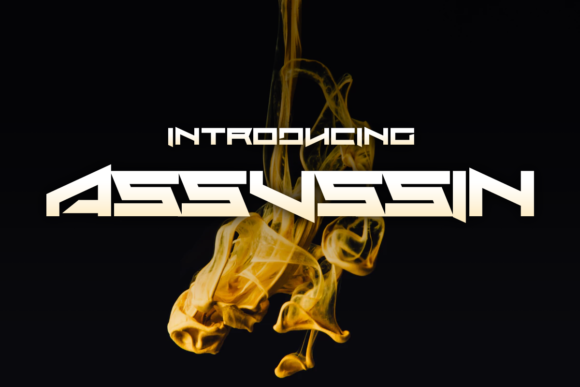
The Assvssin Font: A Unique Typeface to Make Your Designs Stand Out
I’ll never forget the time I was working on a project for a client who wanted a bold, eye-catching font to match their brand’s edgy personality. I scoured the internet for hours, trying out font after font, but nothing seemed quite right. That was until I stumbled upon the Assvssin font. With its unique blend of style and sass, it was the perfect fit for my client’s brand. In this article, I’ll share my experience with the Assvssin font, including what I love about it, its quirks and limitations, and how to use it on different platforms.
An Honest Review of Assvssin Font
What I Love About Assvssin Font
- ✨ Unique and bold design that grabs attention
- ✅ Highly versatile and can be used for a wide range of design projects
- 💡 Supports OpenType features, glyphs, and stylistic alternates
- 🎨 Great for designs that need a touch of edginess and personality
While the Assvssin font is an amazing addition to any design project, it’s not without its quirks. Here are a few things to keep in mind:
- 🤔 May not be suitable for body text or long-form content due to its bold and edgy design
- ⚠️ Some characters may not display correctly in older software or browsers
The Backstory of Assvssin Font
The Assvssin font was designed by a team of typographers who wanted to create a unique and bold typeface that would stand out in any design project. Inspired by the world of art and design, the Assvssin font is a reflection of the creative and innovative spirit of its designers.
Q: What is the Assvssin font best used for?
A: The Assvssin font is best used for designs that need a bold and eye-catching typeface, such as logos, headers, and titles.
Q: Is the Assvssin font suitable for body text?
A: No, the Assvssin font is not suitable for body text due to its bold and edgy design. It’s best used for headings and titles.
Q: Is the Assvssin font available in different weights and styles?
A: Yes, the Assvssin font is available in different weights and styles, including OpenType features, glyphs, and stylistic alternates.